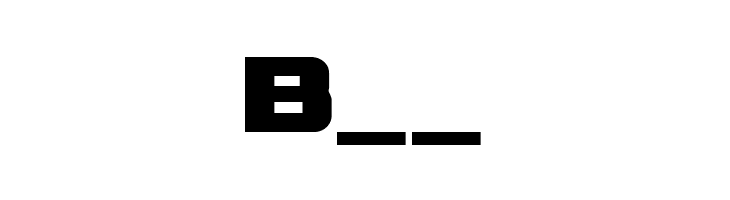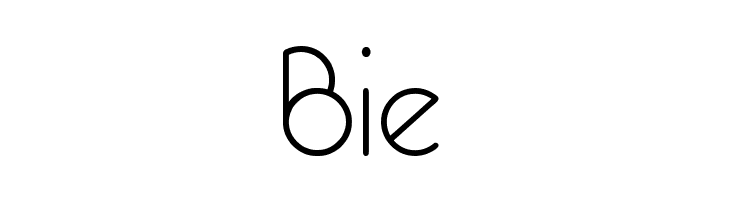
• Hotpepper
• Hotte Brush Swash
A dynamic brush-style font with artistic swashes and a hand-drawn appearance.
• Houthman
A dynamic handwritten font with fluid strokes and a casual style.
• How Can I Organize My Garage?
Automotive-themed pictorial display font using car parts and tools for each character.
• Howling Sinister
A playful, handwritten font with a whimsical and casual style.
• Hujan Tropis Bold
A playful, bold font with rounded edges and a hand-drawn appearance.
• Humongous of Eternity St
A modern, minimalist font with rounded edges and uniform stroke width.
• Hunter Squared
A bold, geometric font with squared edges and a modern, industrial feel.
• HYPER BLOCK Regular
A bold, geometric font with angular, crystal-like shapes.
• I'm Bored
A whimsical, decorative font with elegant swirls and curls.